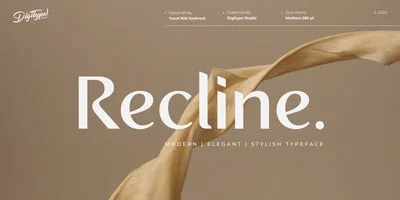
Recline Font
Recline Font is perfect for modern branding projects, luxury packaging design, fashion magazines, premium website headers, elegant wedding invitations, sophisticated logos, minimalist poster designs, and high-end product catalogs.
Recline Font is exciting because it combines contemporary elegance with timeless sophistication, offering designers a versatile typeface that effortlessly bridges the gap between modern minimalism and classic refinement. Its sleek character design and carefully crafted letterforms make it an ideal choice for projects that demand both visual impact and professional polish.
The Recline Font family includes multiple weights and styles: Recline Light, Recline Regular, Recline Medium, Recline Bold, and Recline Black, along with their corresponding italic versions, providing designers with comprehensive typographic flexibility for any creative project.
When searching for premium typography solutions, Recline Font stands out as an exceptional choice for designers who appreciate clean lines and sophisticated aesthetics. This remarkable typeface offers incredible versatility across digital and print media, making it suitable for everything from corporate branding to editorial design. The font's unique character shapes and balanced proportions ensure excellent readability while maintaining distinctive visual appeal.
Professional designers consistently choose Recline Font for projects requiring elegant typography that commands attention without overwhelming the content. Its carefully engineered spacing and thoughtful design details make it particularly effective for headlines, subheadings, and display text applications. The font's modern sensibility combined with classic undertones creates a timeless quality that ensures your designs remain relevant and visually compelling across various contexts.
Whether you're working on digital interfaces, print publications, or branding materials, Recline Font delivers the professional quality and aesthetic excellence that today's design standards demand. Its clean geometry and refined character set make it an invaluable addition to any designer's font library, offering endless possibilities for creative expression while maintaining the highest standards of typographic excellence.